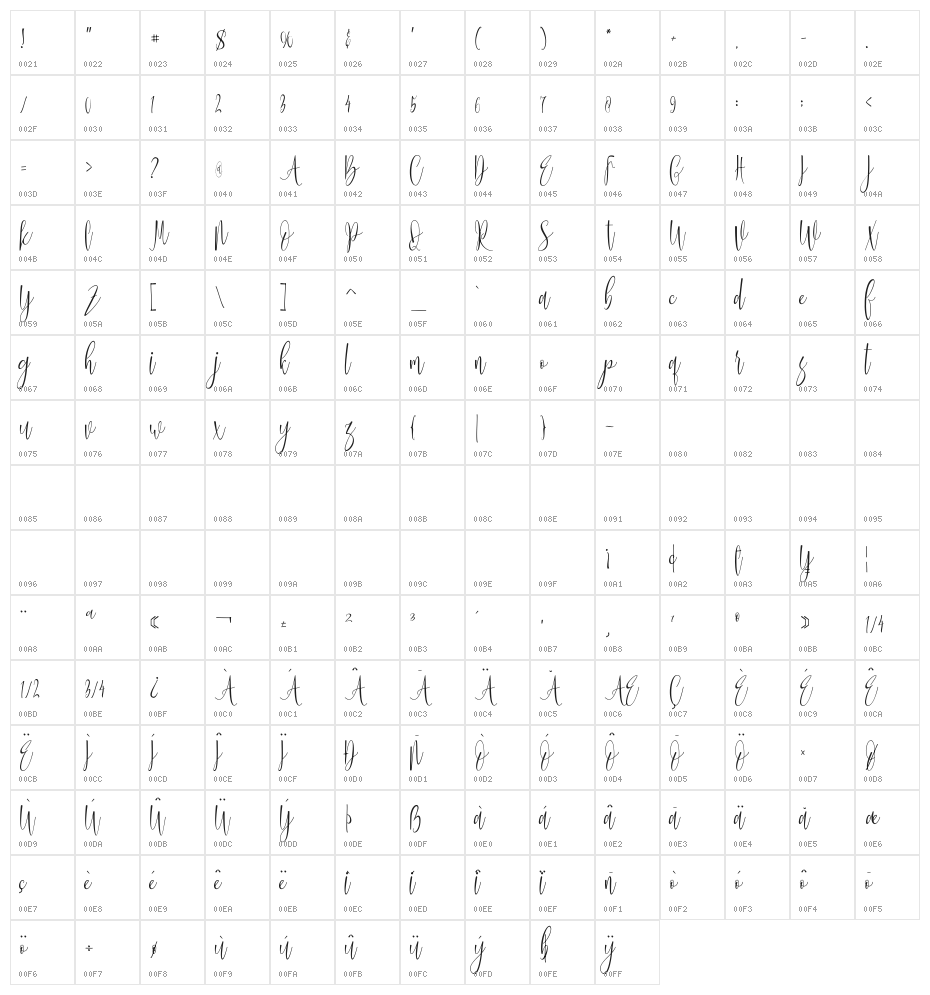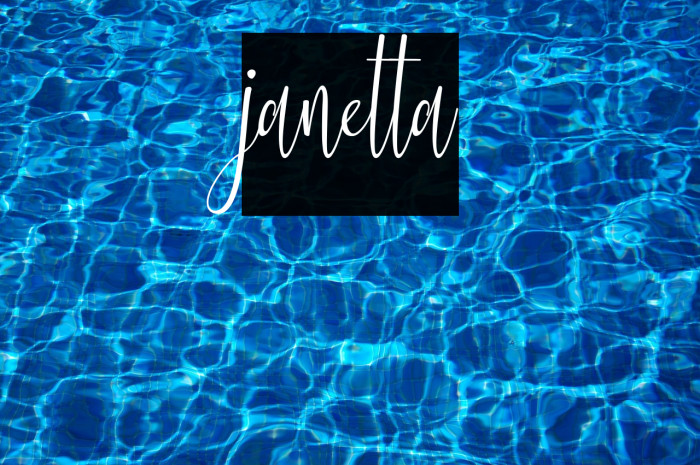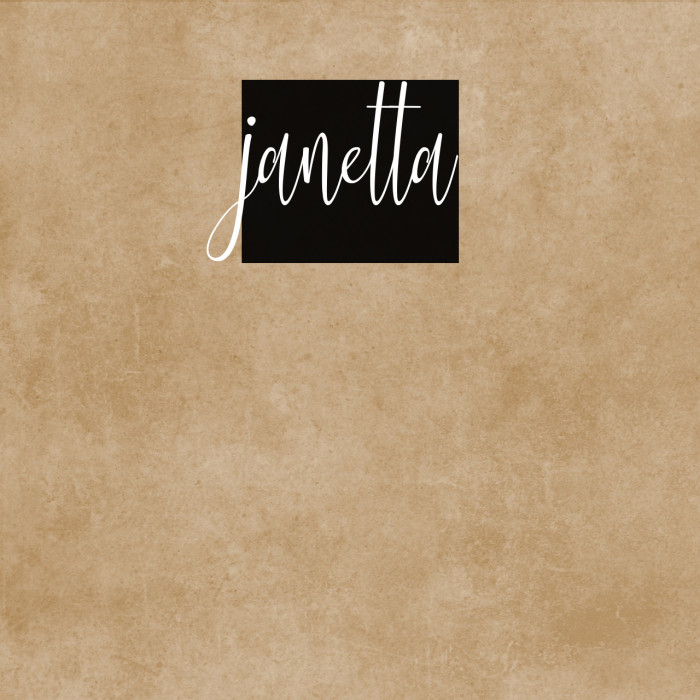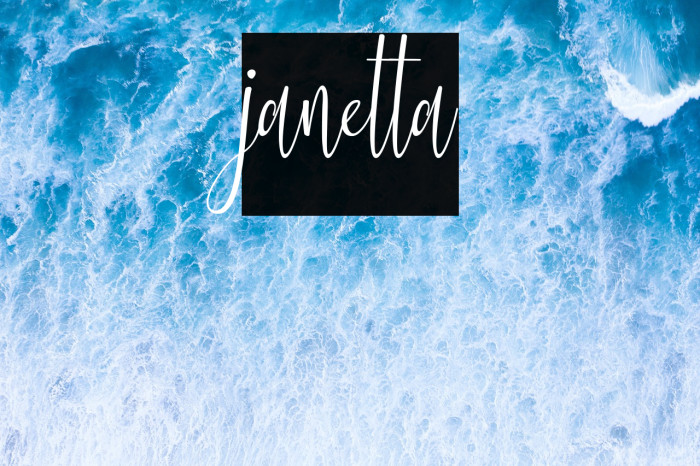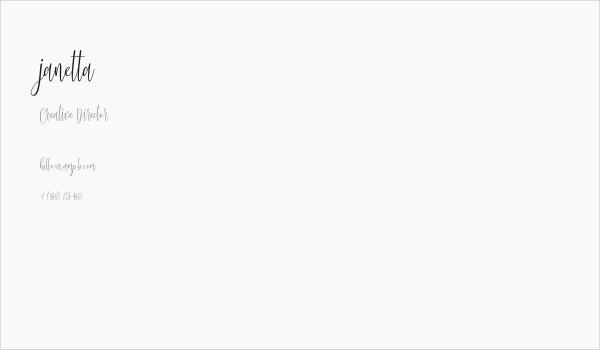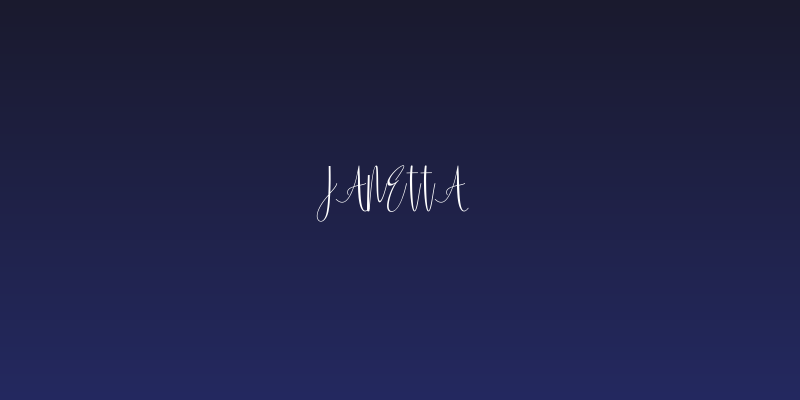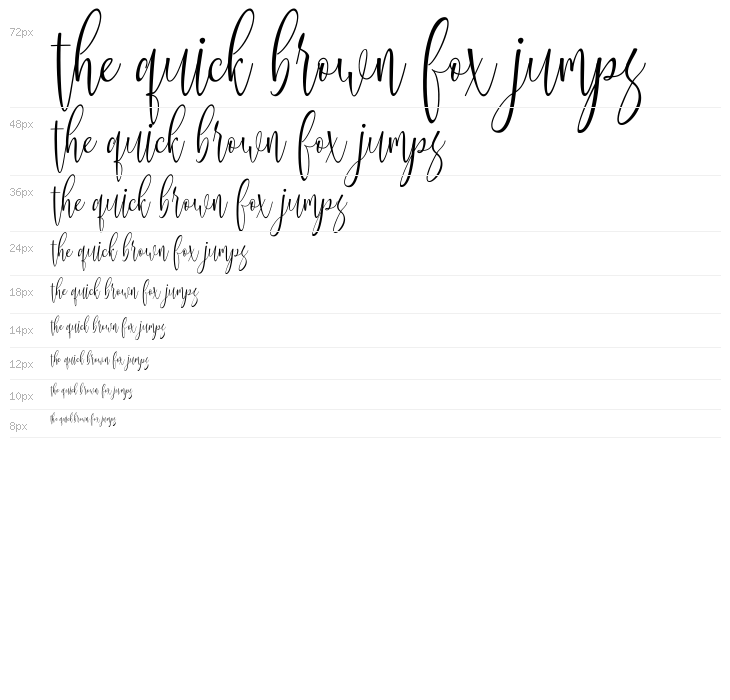
janetta Font
janetta Description
This font features an elegant and flowing script style, characterized by its tall, slender letterforms and graceful curves. The uppercase letters exhibit a distinct flair with elongated strokes and a sense of movement, while the lowercase letters maintain a cohesive and harmonious appearance. The numbers and special characters are crafted with the same attention to detail, ensuring a consistent aesthetic throughout. The font's overall design exudes a sense of sophistication and artistic flair, making it suitable for projects that require a touch of elegance and creativity.
| Overall Style | Elegant, Artistic |
| Proposed Projects | Ideal for wedding invitations, elegant branding, artistic posters, and personal stationery. |